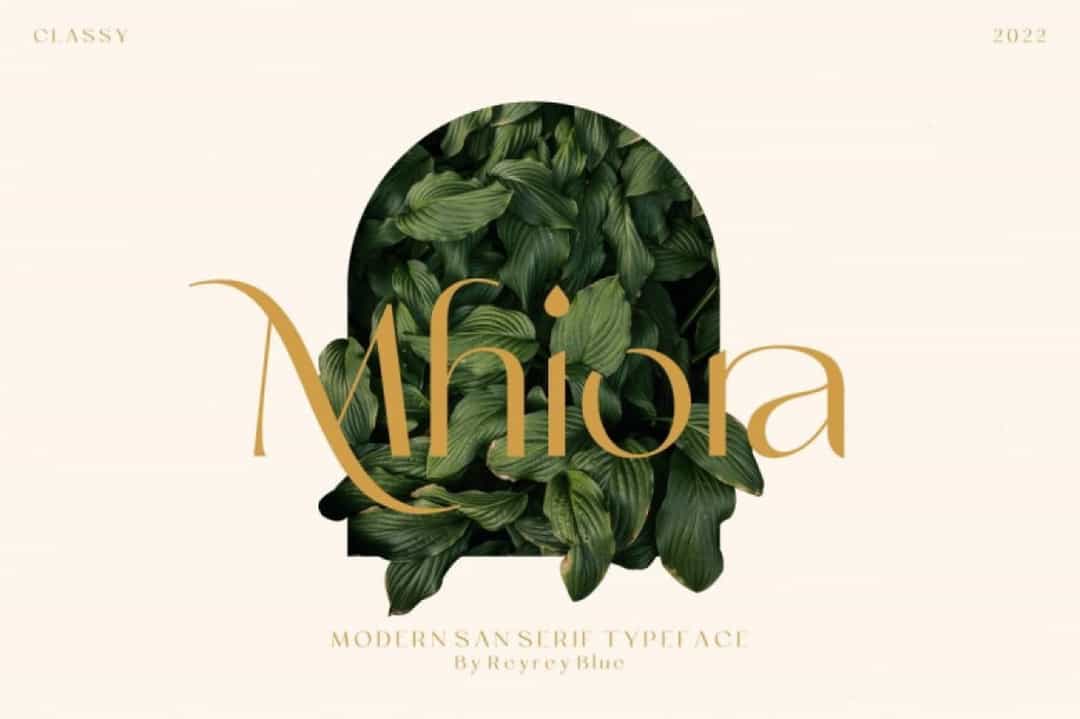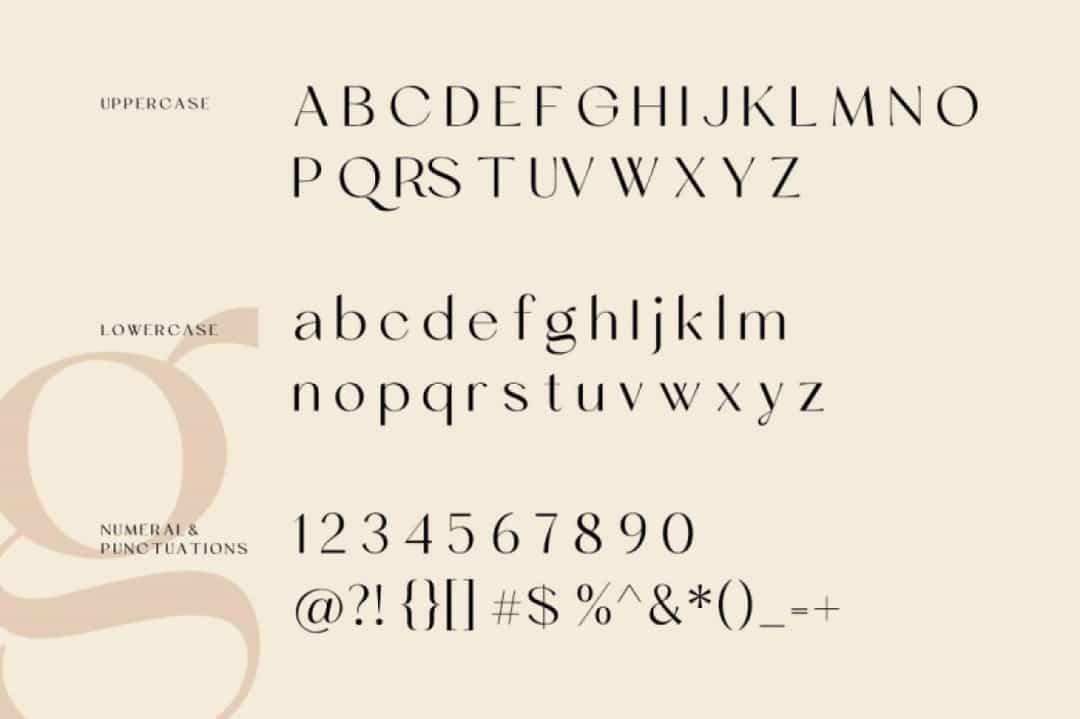
Mhiora is an elegant yet modern sans serif typeface designed specifically to create luxurious feminine designs. Offering various alternates and ligatures for mastheads and logo design projects alike.